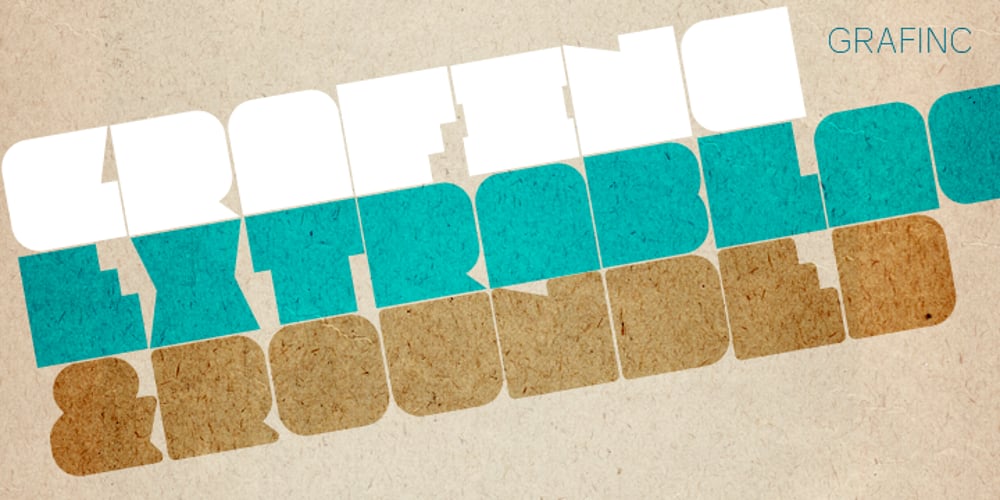
Grafinc
Grafinc font
Grafinc Font Family was designed by Andrej Waldegg and published by PosterType. Grafinc contains 2 styles and family package options. Grafinc is fat, black and robust. It is a geometric-based display typeface that comes in two cuts: ExtraBlack and Rounded. Grafinc can be used for all types of media – print, web, broadcasting or games. Despite its robust appearance and display character, Grafinc is very friendly typeface. It appears to be very legible in smaller sizes, too. The cuts include some very fine ligatures, making its appearance very rhythmic and smooth. Available in OpenType and western languages.